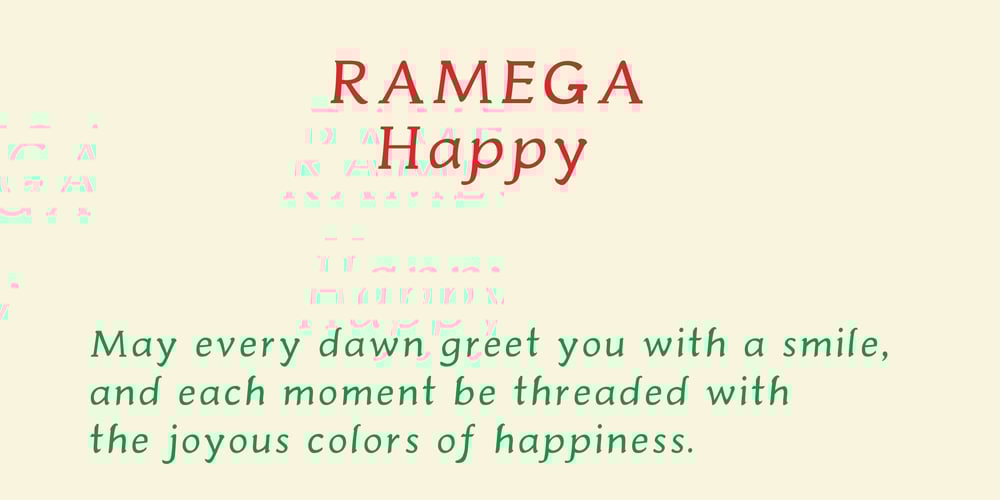
Ramega Happy Font Family was designed by Apollo Zhang and published by Ramega. Ramega Happy contains 1 styles and family package options. Delight in the joyous flair of “Ramega Happy,” a fresh serif typeface with a twist of handwritten charm. This enchanting font blends the structured beauty of serifed letters with the whimsical touch of a hand-sketched style, delivering a creative concoction perfect for a medley of design applications.At the heart of “Ramega Happy” lies a playful rapport between formality and carefree expression. The typeface cradles the serenity of traditional serif fonts while embracing the exuberance of casual handwriting. Each glyph is constructed with a love for the classic, punctuated by gestural quirks that echo a human touch. Its balanced serifs are delicate yet assertive, grounding each letter with a sense of purpose and refined poise.”Ramega Happy”‘s buoyant personality shines in its subtle unevenness and variable stroke weights, endowing text with a dynamic rhythm that dances across the page. This zestful vibe is particularly effective for engaging headlines, spirited branding, and feel-good marketing materials where the underlying message is positivity and approachability.Designed for both impact and intimacy, “Ramega Happy” performs admirably in larger displays, yet retains a gentle charisma in smaller texts. Its versatility extends to an array of mediums—print ads, digital interfaces, packaging, and even personalized stationeries are all elevated by this font’s good-natured elegance.Embrace “Ramega Happy” as your go-to tool for crafting narratives that require a dash of optimism. It isn’t merely a typeface; it’s a visual storyteller, imbued with a vibe of contentment and a breezy attitude that can transform any piece of communication into an inviting conversation.Choose “Ramega Happy” for your next creative endeavor and let your words reflect the light-hearted, joyful spirit that this typeface is destined to impart. It’s more than just a font—it’s a celebration of happiness, rendered in ink.